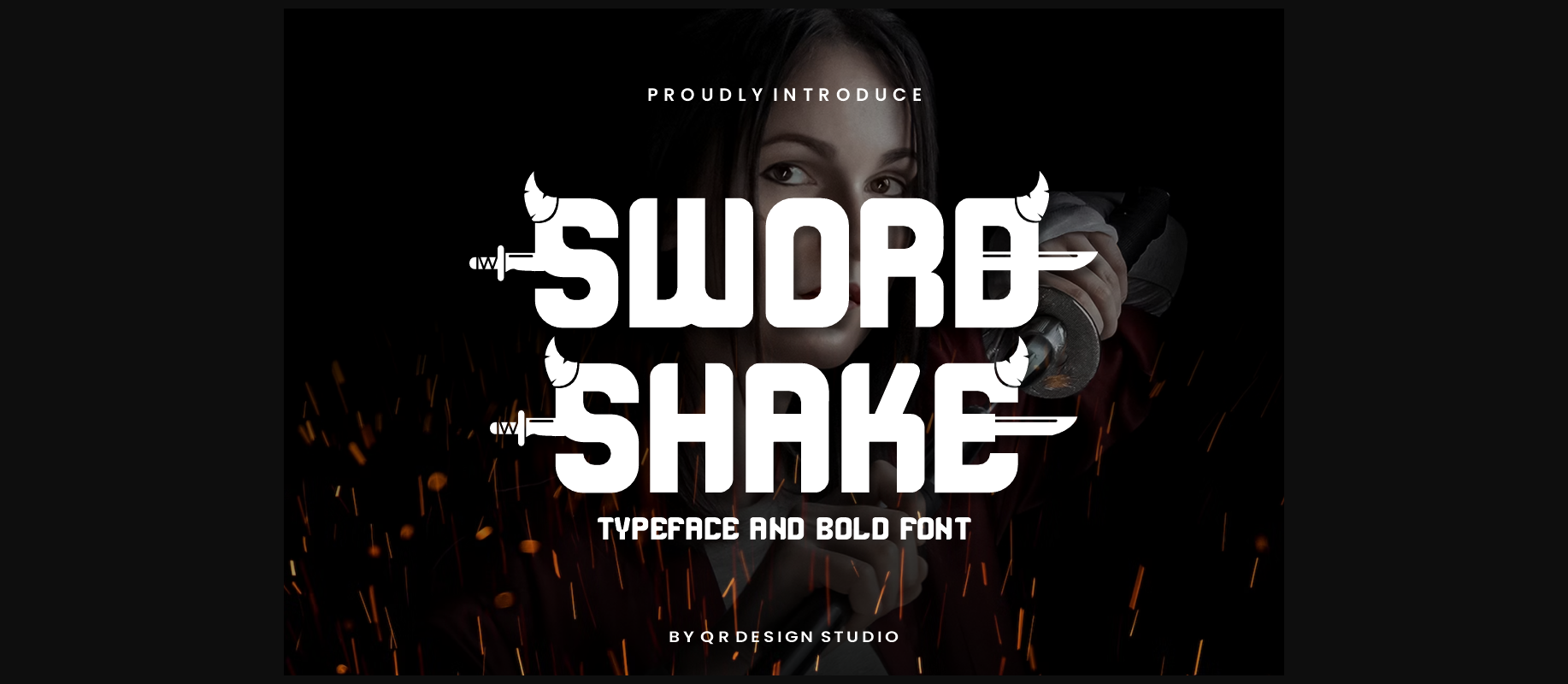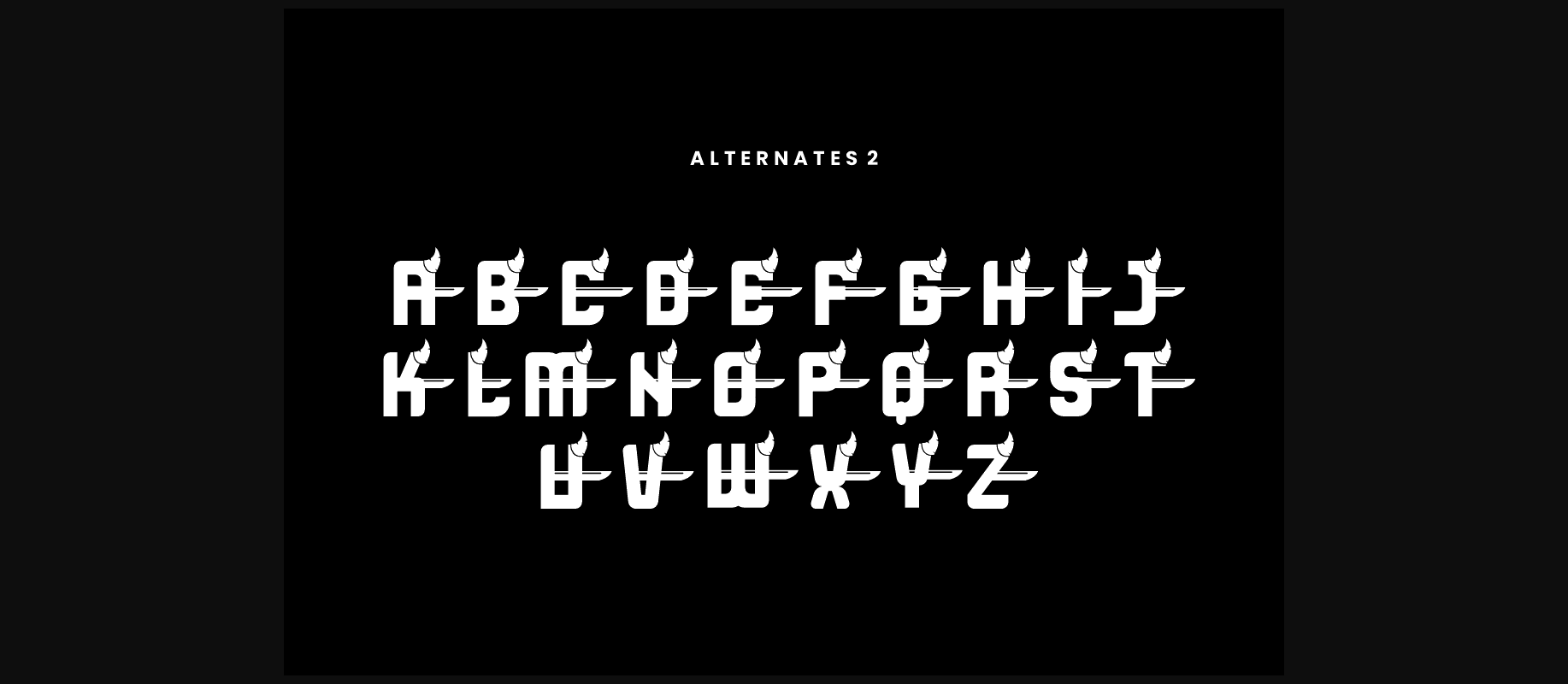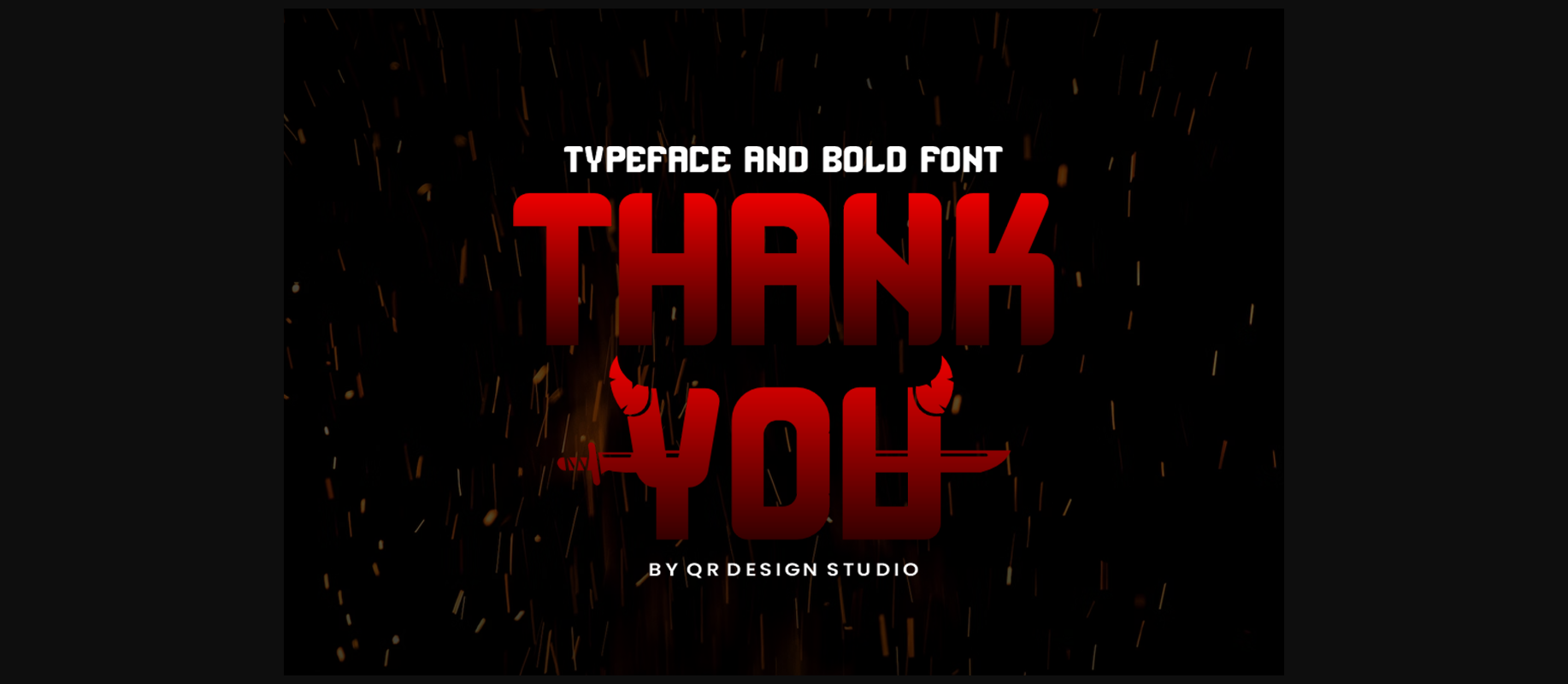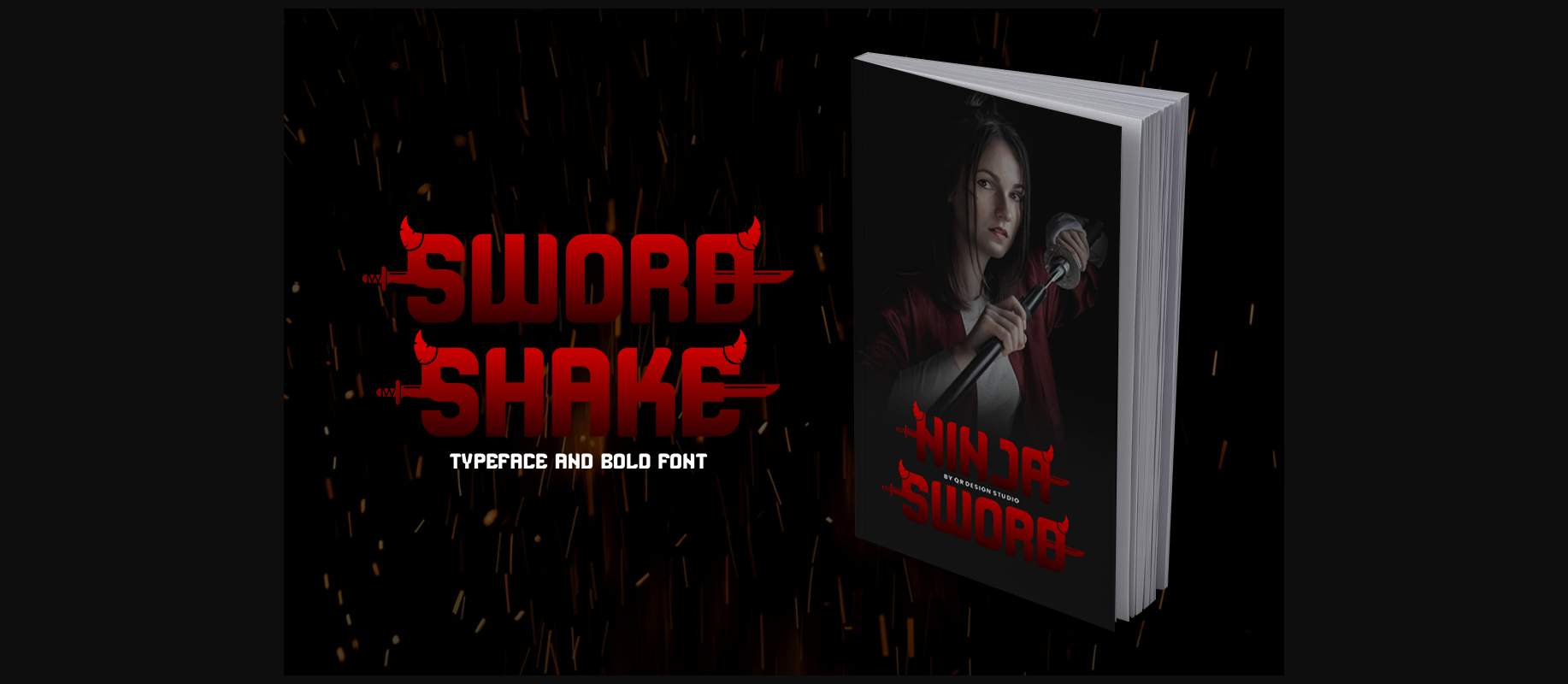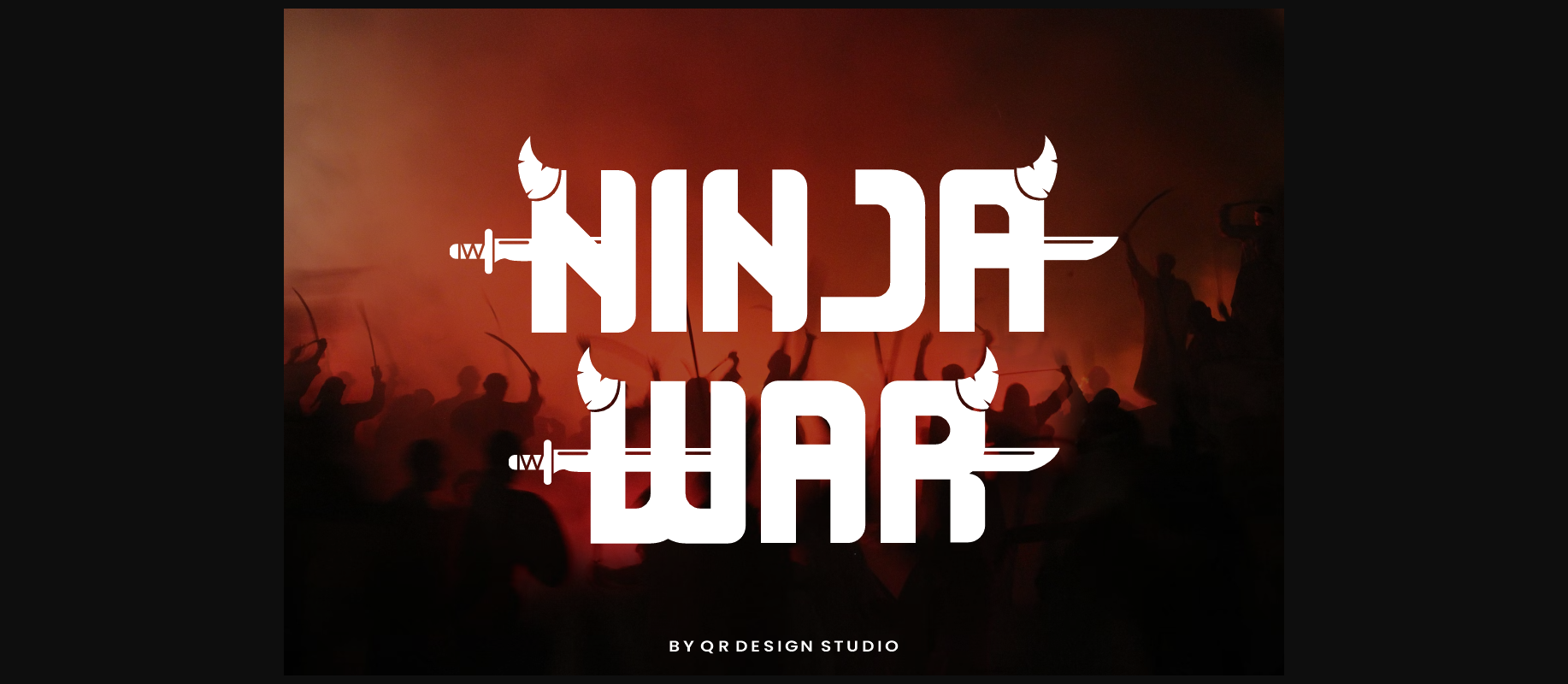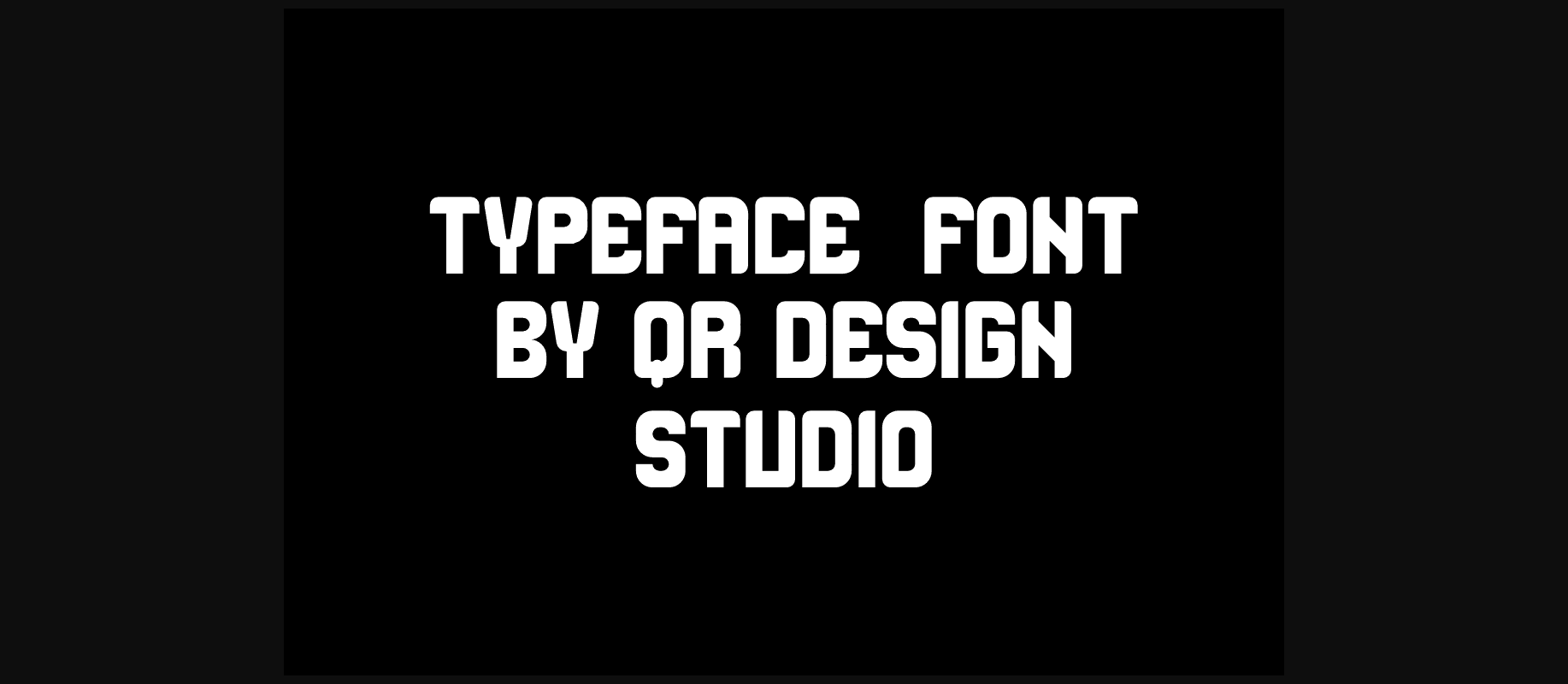
About Sword Shake Font
Sword Shake Font is a bold and authentic display font.
The font is suitable for any branding project like logo, sport, and many more.